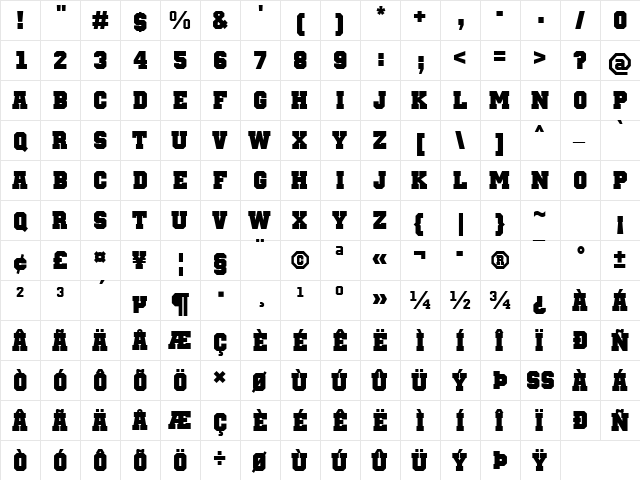
Team MT Bold Font Preview
Team MT Bold
Team MT Bold Font Details
| Foundry | Monotype Typography |
Design Context for Team MT Typeface
Team MT takes a measured approach to typography — its balanced proportions and neutral character make it a reliable workhorse for both digital and print work. The heavy weight commands attention and anchors typographic hierarchies.